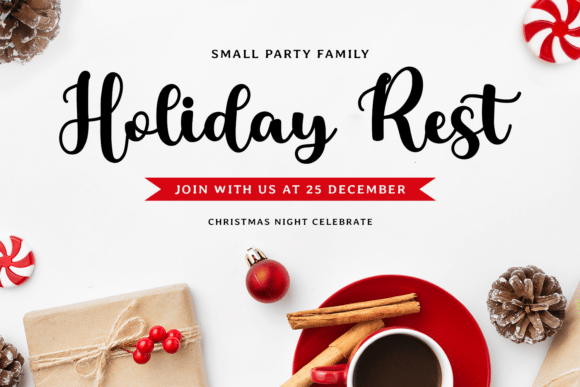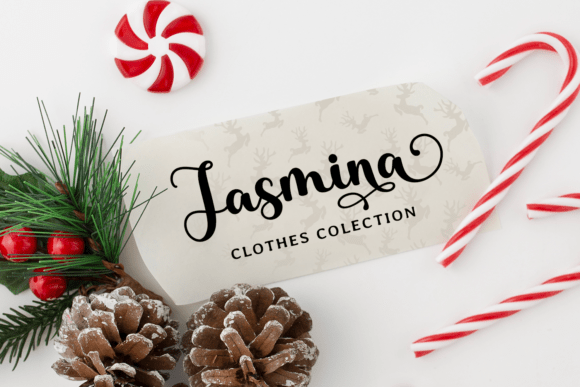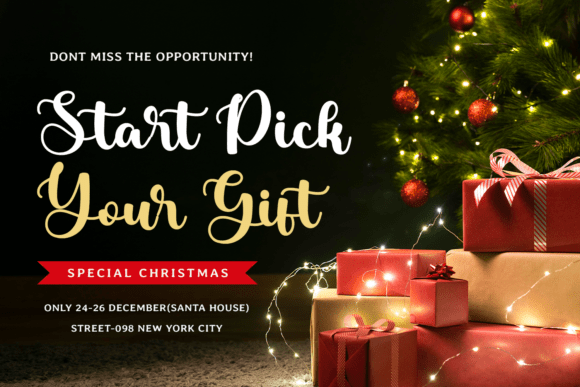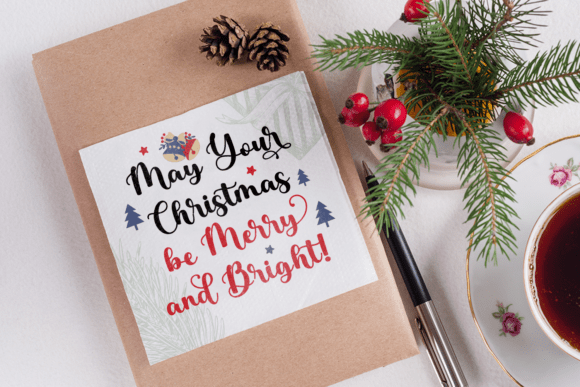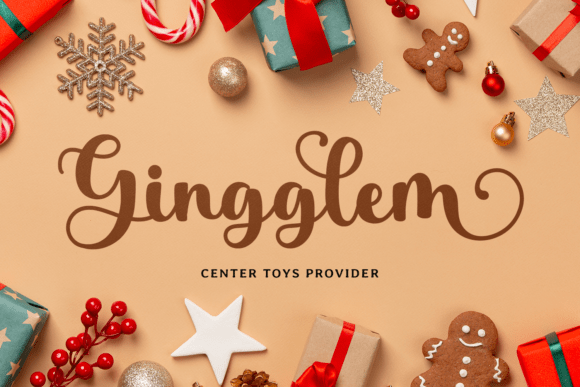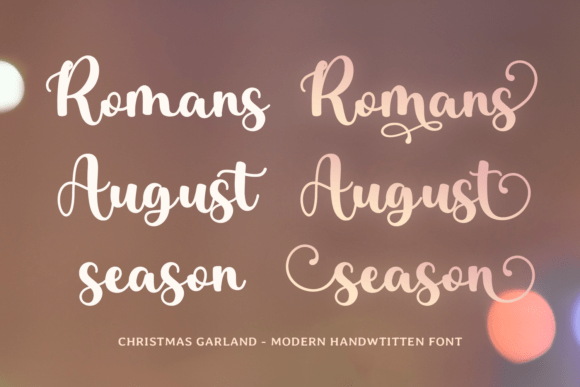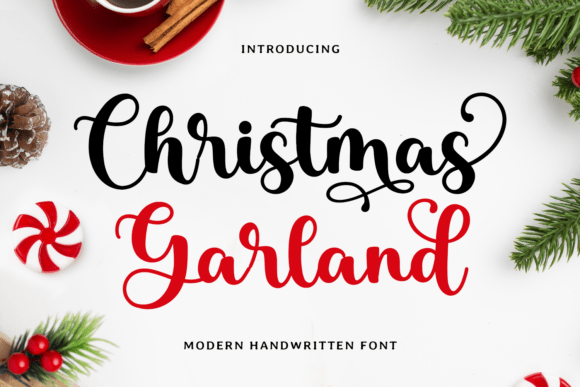
Introducing Christmas Garland Font: The Ultimate Festive Script Font for Holiday Designs
Are you looking for a font that captures the essence of the holiday season? Do you want to add a touch of elegance and festivity to your designs? Look no further than Christmas Garland Font, a beautiful script font inspired by the warmth and joy of Christmas. With its flowing strokes and delicate swashes, this font is perfect for creating stunning holiday-themed projects that will leave a lasting impression.
A Festive Font Inspired by Handwritten Calligraphy
Christmas Garland Font is a festive and elegant script font that draws inspiration from handwritten calligraphy. Its graceful curves and flowing strokes evoke the charm of traditional calligraphy, making it perfect for creating beautiful holiday designs. Whether you’re designing invitations, greeting cards, or holiday decor, this font brings a magical touch to your creations.
Christmas Garland Font is ideal for a wide range of holiday-themed projects, including:
- Christmas invitations and greeting cards
- Holiday decor and signage
- New Year’s Eve party invitations and decorations
- Thanksgiving dinner invitations and menus
- Cricut designs and SVG crafts
- Embroidery and other needlework projects
Timeless Beauty and Versatility
With its delicate swashes and decorative elements, Christmas Garland Font exudes a timeless beauty that complements festive occasions like New Year, Thanksgiving, and Christmas. This versatile typeface ensures that your projects radiate holiday cheer, making it perfect for designers and crafters who want to create stunning holiday designs.
Design Features and Benefits
Christmas Garland Font features:
- Delicate swashes and decorative elements
- Beginning and ending swashes on each character for a harmonious flow
- Elegant and flowing strokes inspired by handwritten calligraphy
- Perfect for creating festive and elegant holiday designs
Why Choose Christmas Garland Font?
There are many reasons why Christmas Garland Font is the perfect choice for your holiday designs:
- Adds a touch of festive elegance to your designs
- Perfect for creating stunning holiday-themed projects
- Versatile and easy to use for a wide range of design applications
- Inspired by traditional handwritten calligraphy
- Features delicate swashes and decorative elements for a magical touch
Make Your Designs Unforgettable
Christmas Garland Font is a must-have for designers and crafters who want to add a touch of festive elegance to their holiday designs. With its flowing strokes, delicate swashes, and decorative elements, this font is perfect for creating stunning holiday-themed projects. Whether you’re designing invitations, greeting cards, or holiday decor, Christmas Garland Font is the ultimate festive script font for your holiday designs.